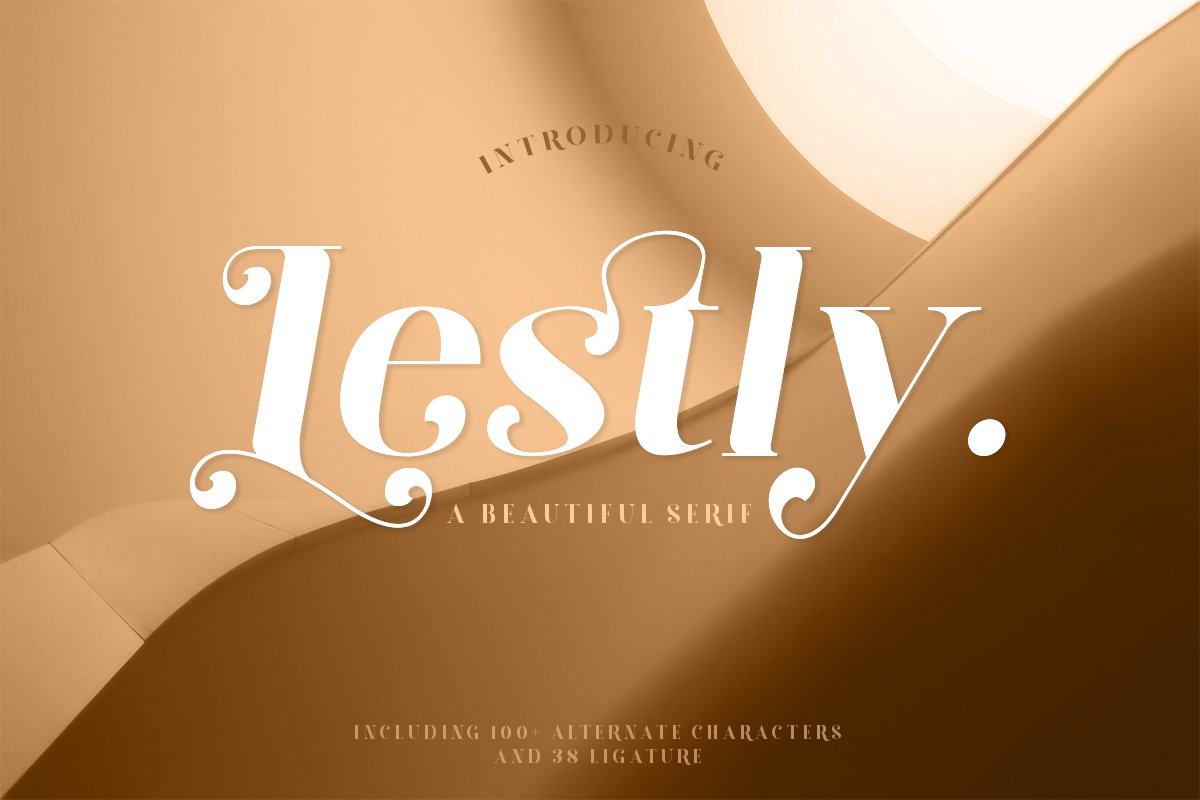
Lestly Fonts
Lestly Italic
Lestly
Lestly Decorative Italic
Lestly Decorative
Lestly Font is an Beautiful font, perfect for logo design, branding, clothing design, signage, posters, wedding invitations and so much more! Also many more alternative characters and ligature.